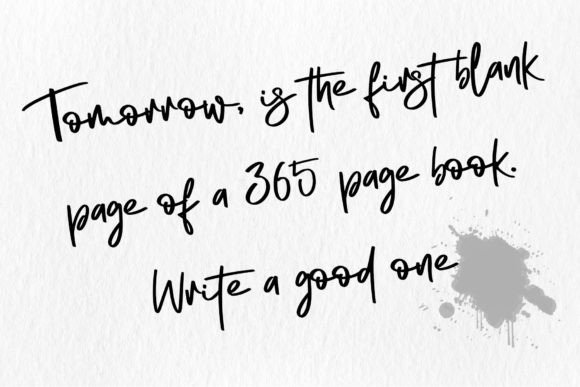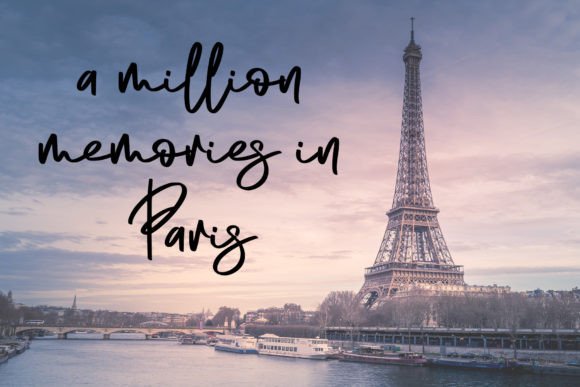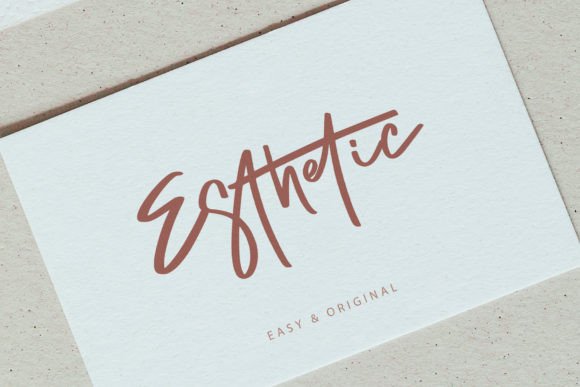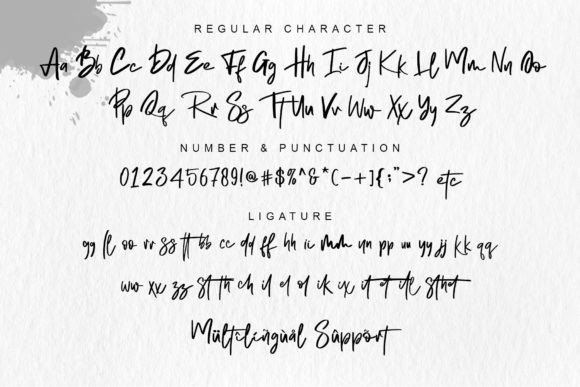
Original Handwriting Font
Original Handwriting is a beautiful, original handwritten font with a unique feel and a stunning impact. It will add a unique spark to any design project that you wish to create! This font is PUA encoded, which means you can access all of the amazing glyphs and ligatures with ease!